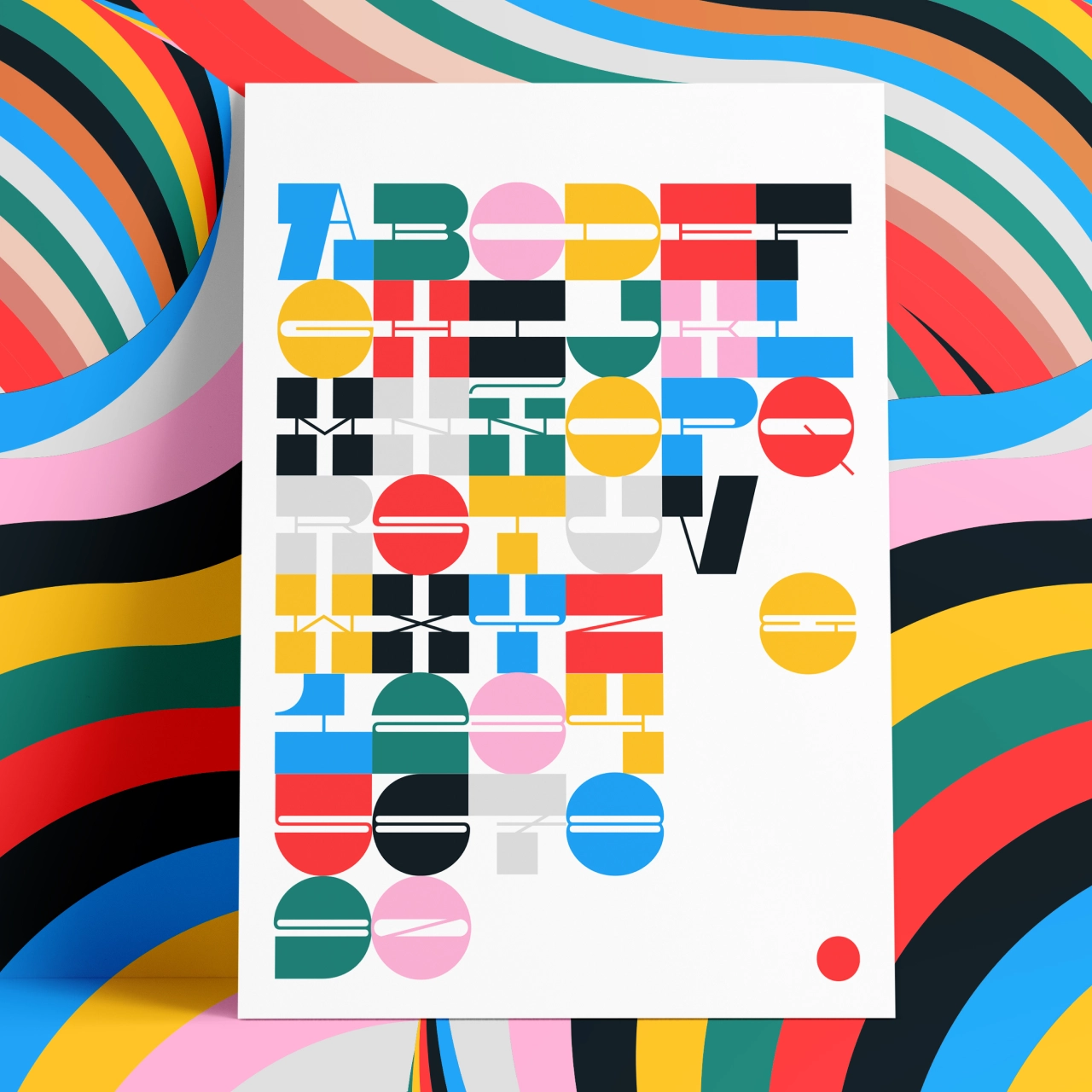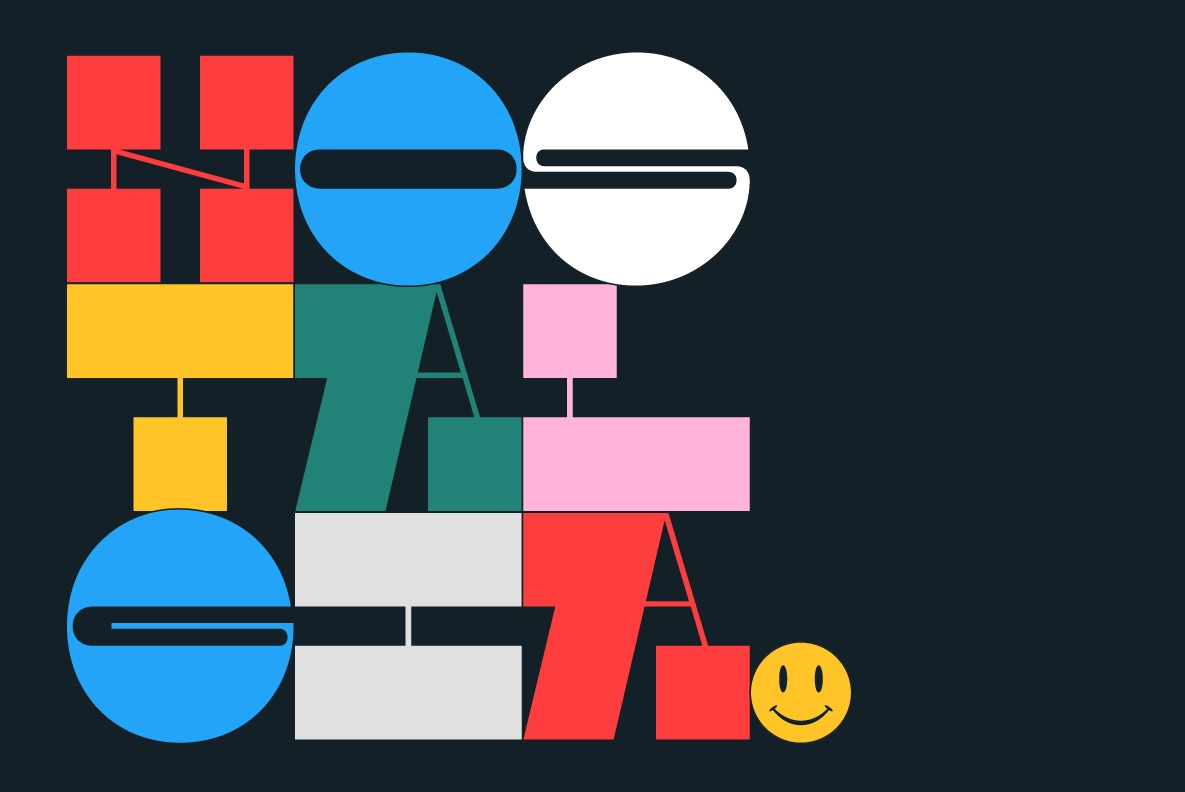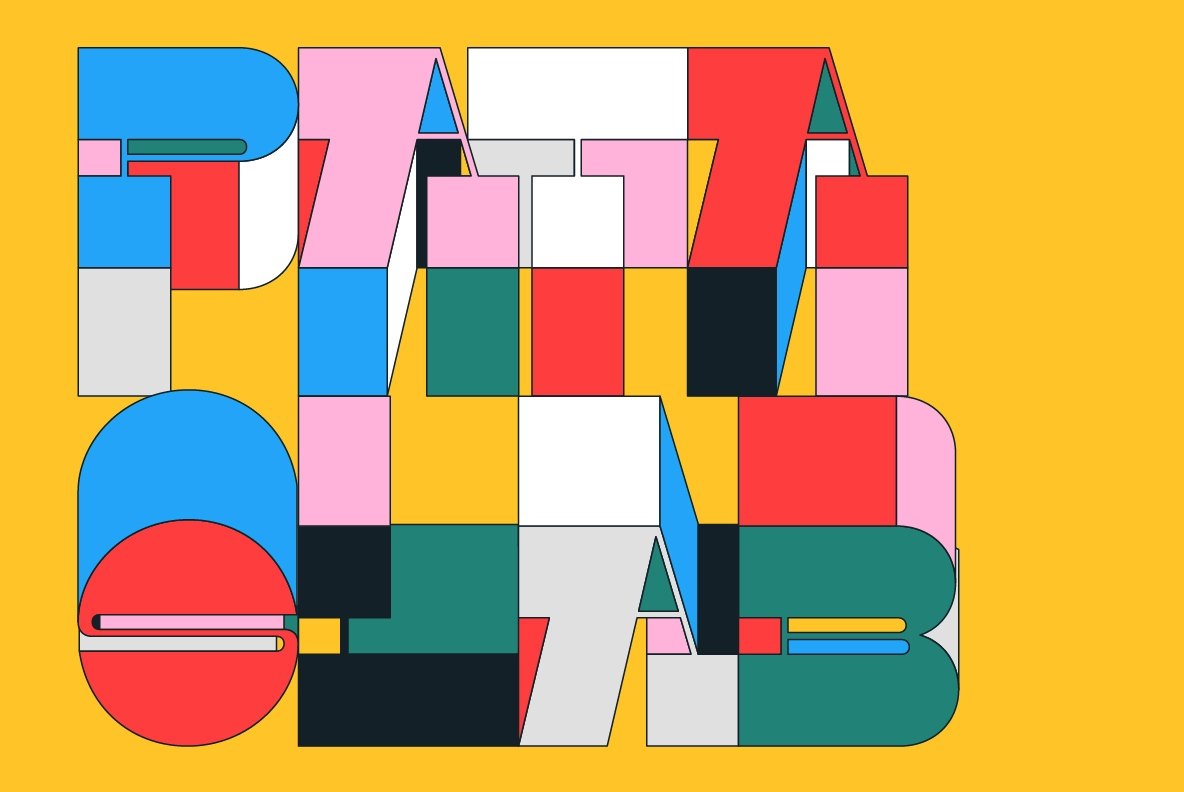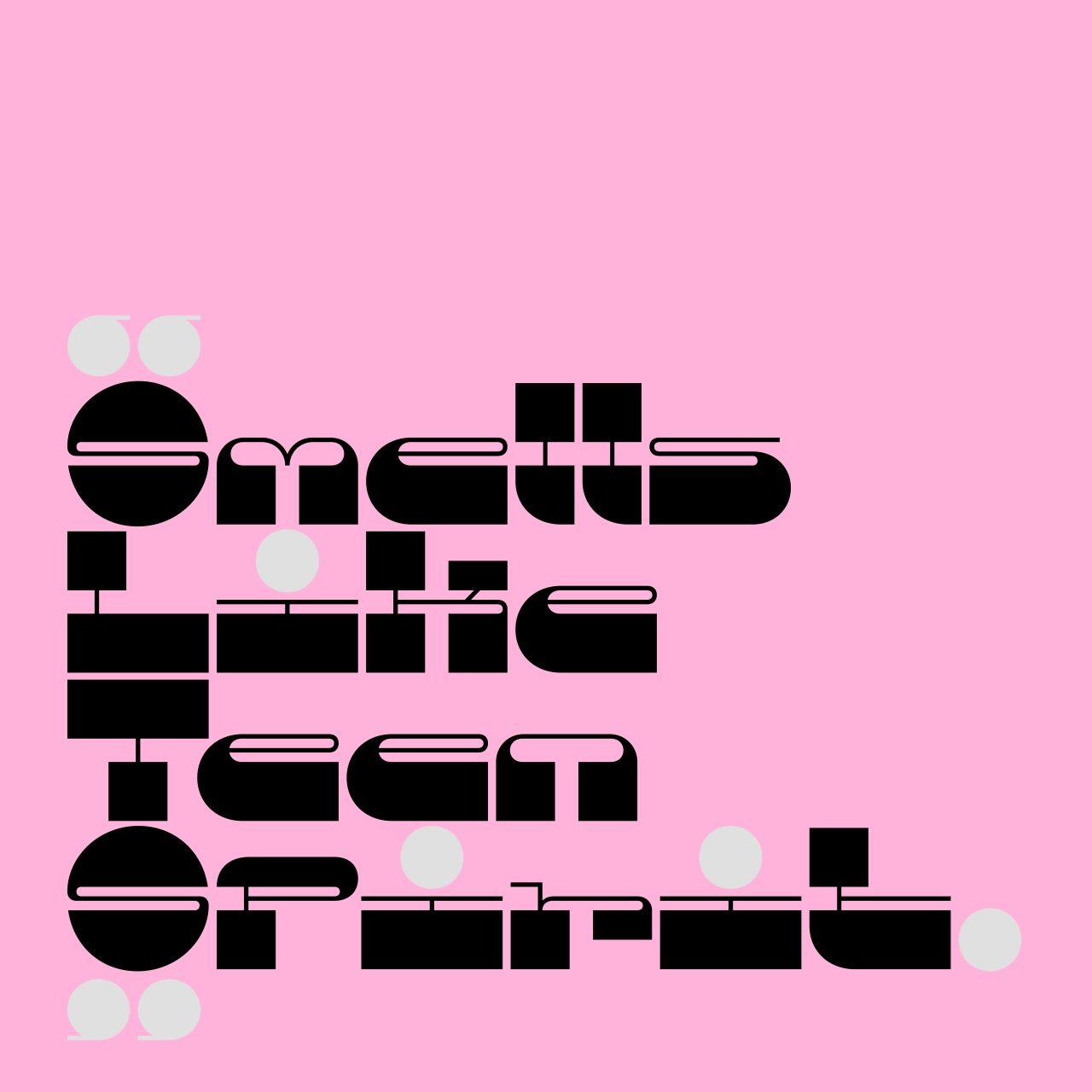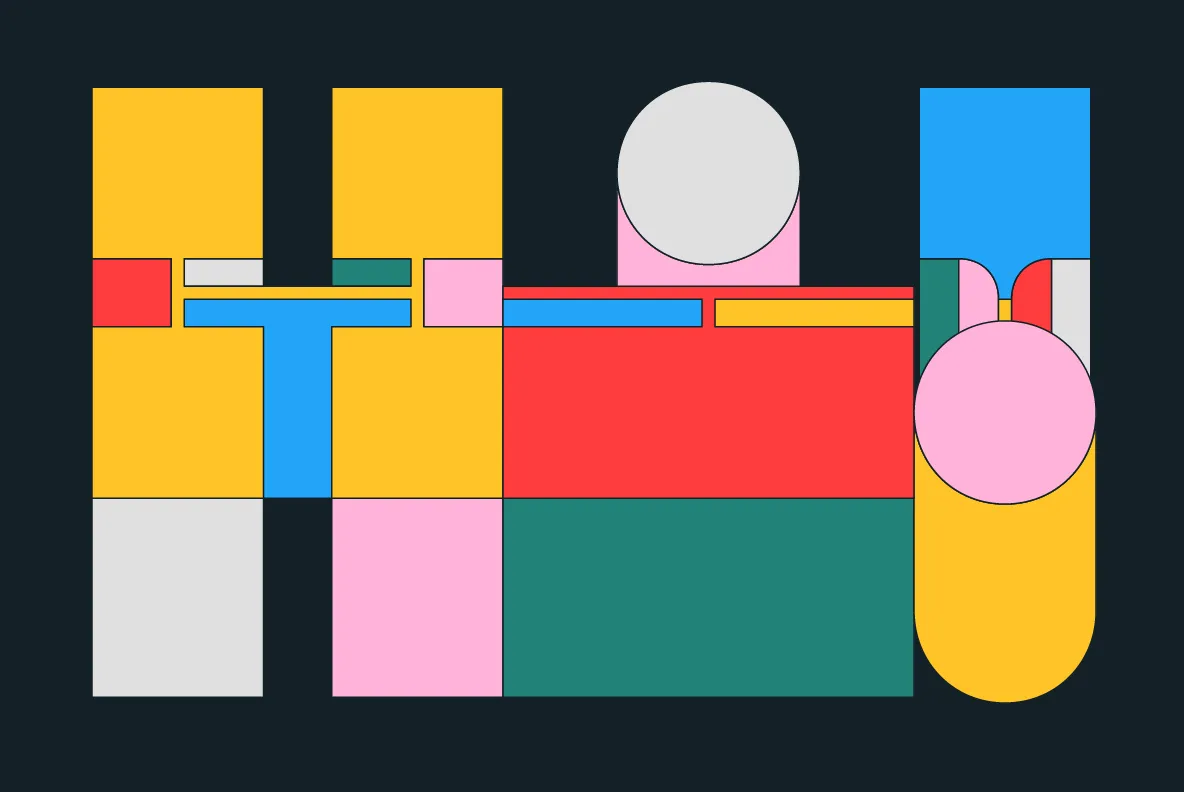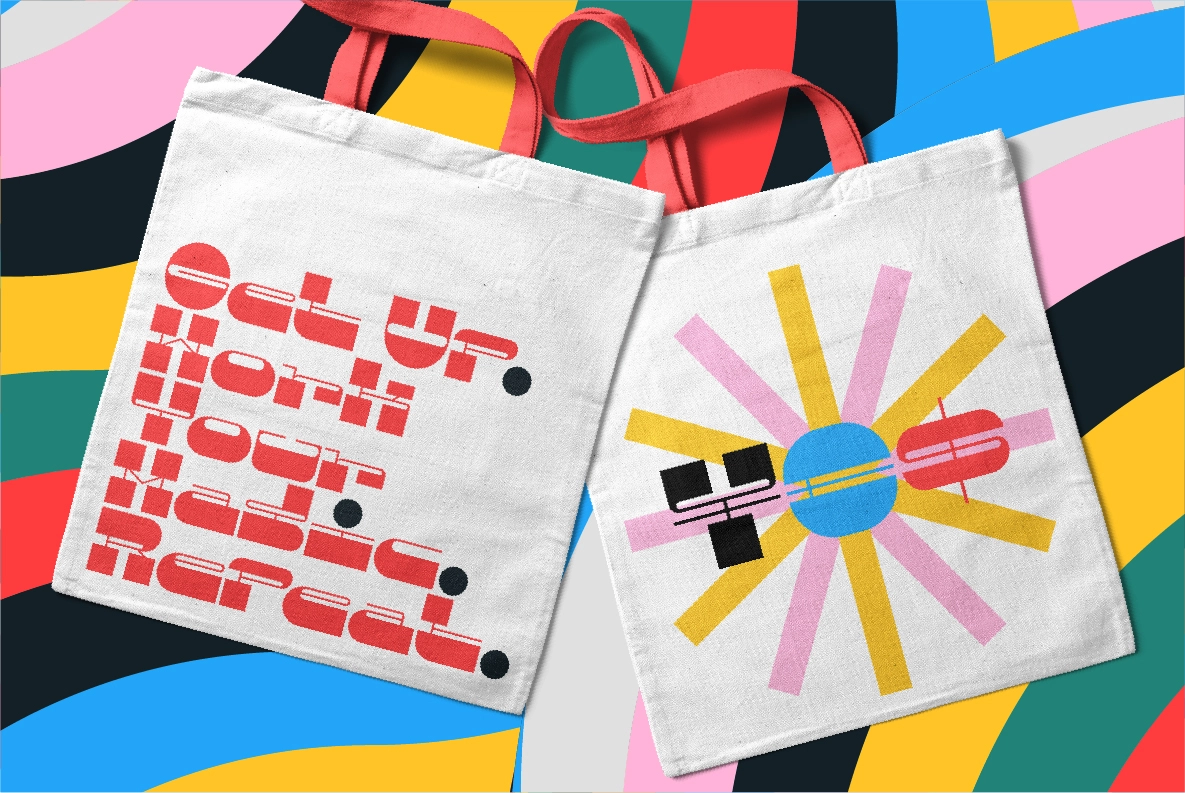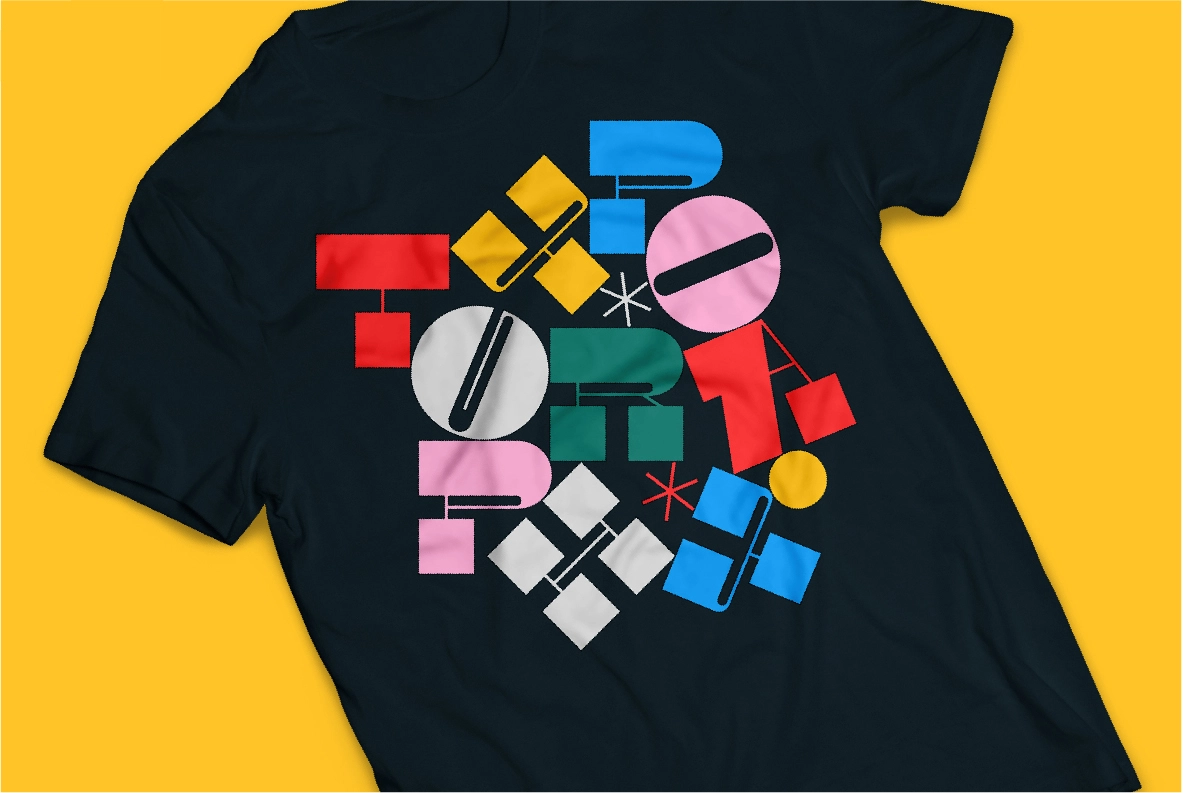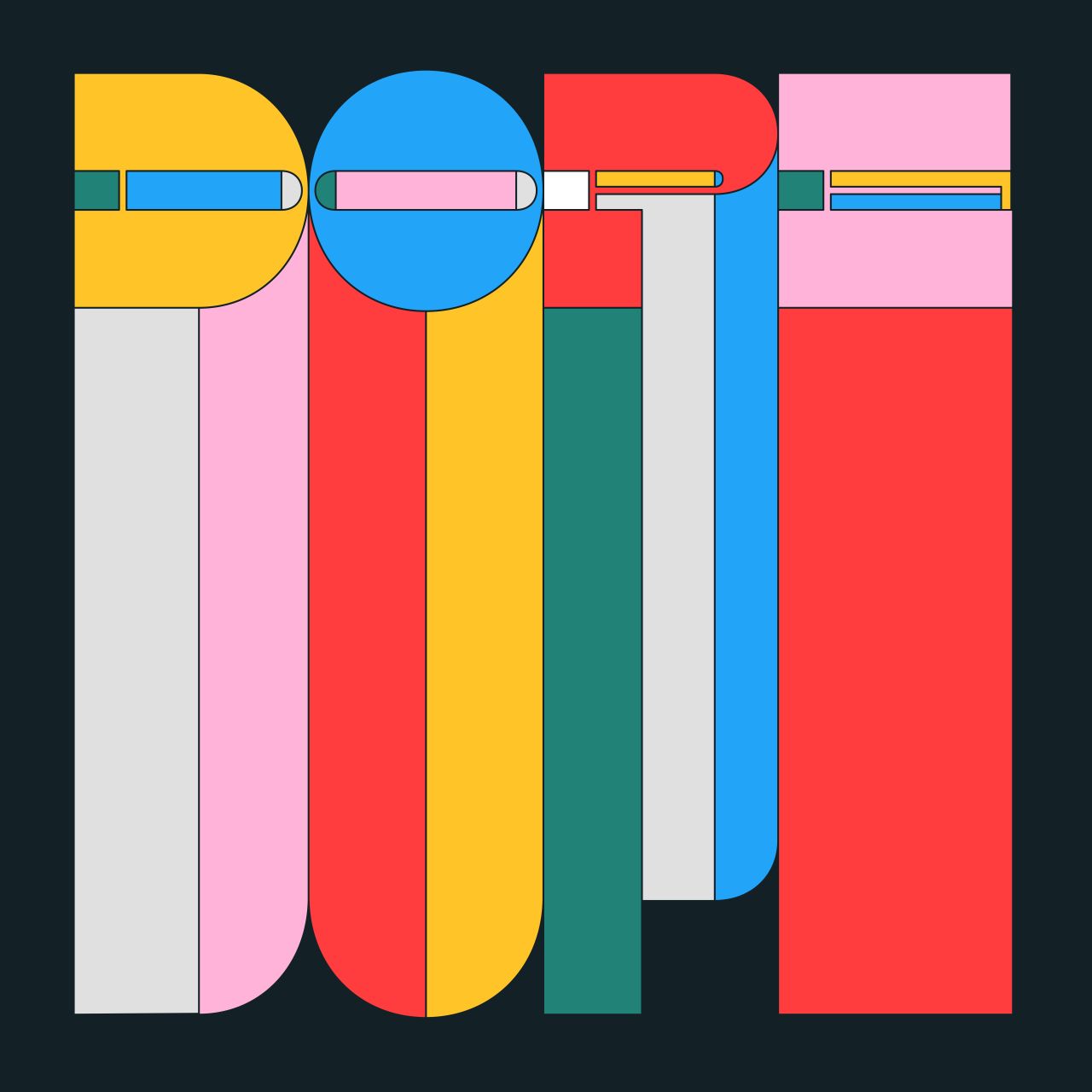
Pata Slab is a funky new font 'built to save us'
We're always excited to see things land in our inbox and write about all your wonderful creations. But today, as we somewhat crawl (perhaps drag ourselves) towards Christmas, we were more than happy to discover Pata Slab, a new font by In-House International, designed by Alexander Wright in collaboration with Rodrigo Fuenzalida.
Assertive, funky and more than a little sexy, it's named after a colloquialism for 'feet', and features ultra-heavy slabs and contrasting hairline centres that rise from its chunky footprint. The resulting, retro-inspired vertiginous curves add instant attitude to any design. "It's built for what we need at the end of 2020," says Michu Benaim Steiner, creative chief at the Austin, Texas agency. "No descenders and all upside; as all characters grow upward from the baseline."
Uppercase characters were drawn to fit precisely inside a square, so they're all the same width and height. Despite all that confinement, Pata was born for "DIY ligatures", as In-House puts it. It sports standard-height terminals that connect seamlessly to each other. The upshot of all this meticulous "quarantinkering" is that laying out, customising and stacking text is effortless.